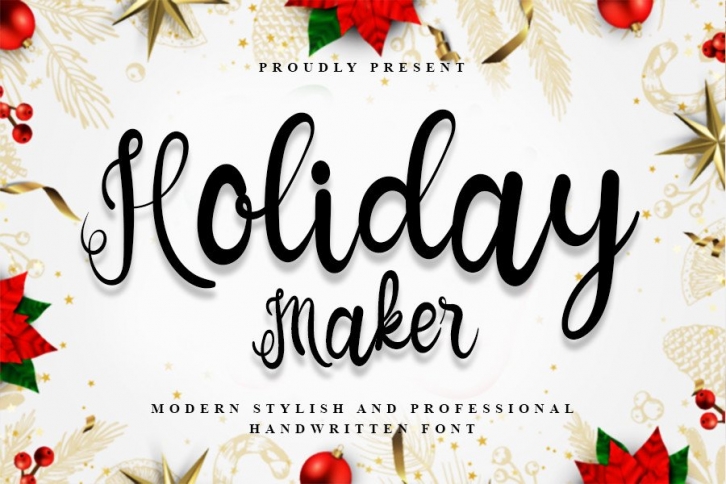
Holiday Maker is a chic, cursive script font that emanates confidence and versatility. Its stylish alternates and ligatures make this font the perfect match for any project.